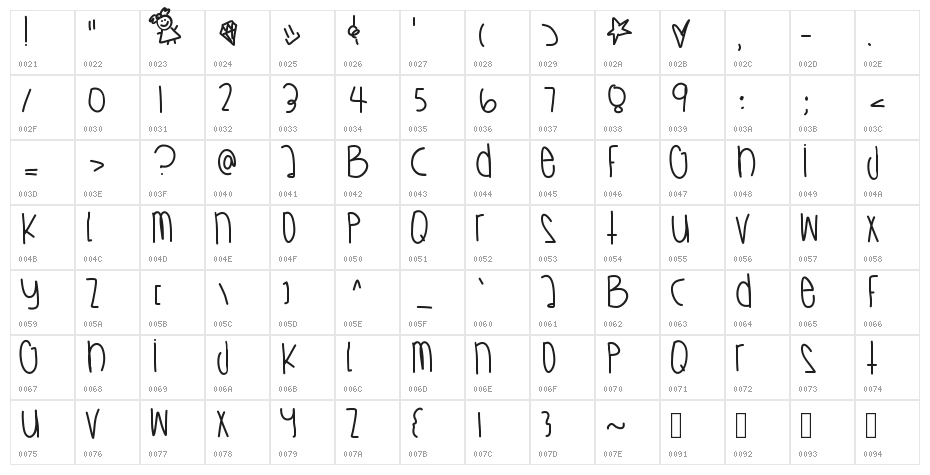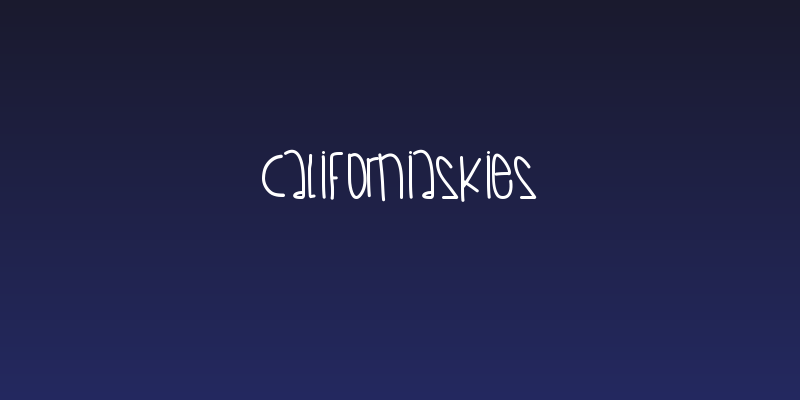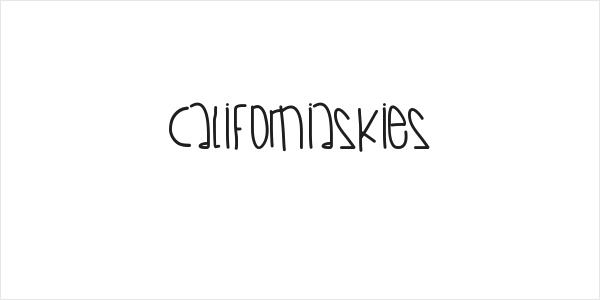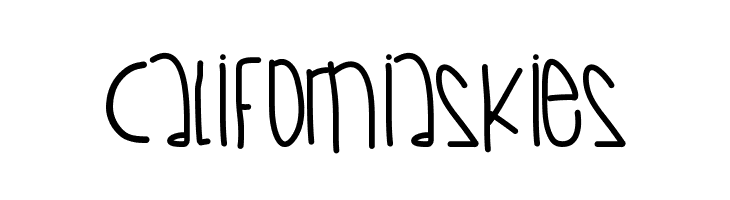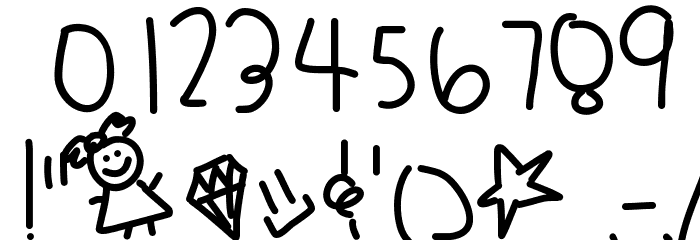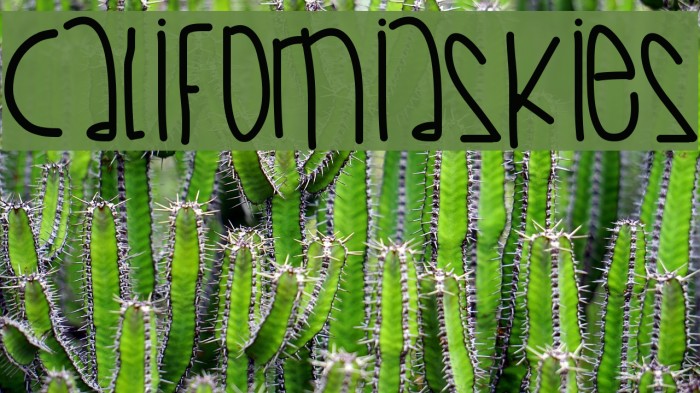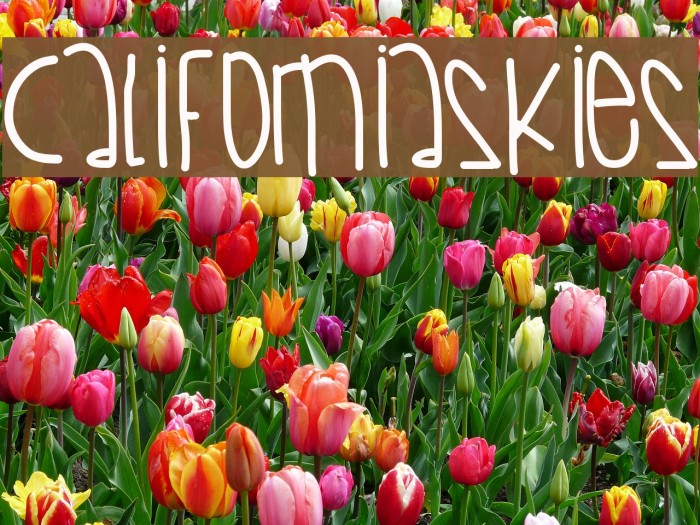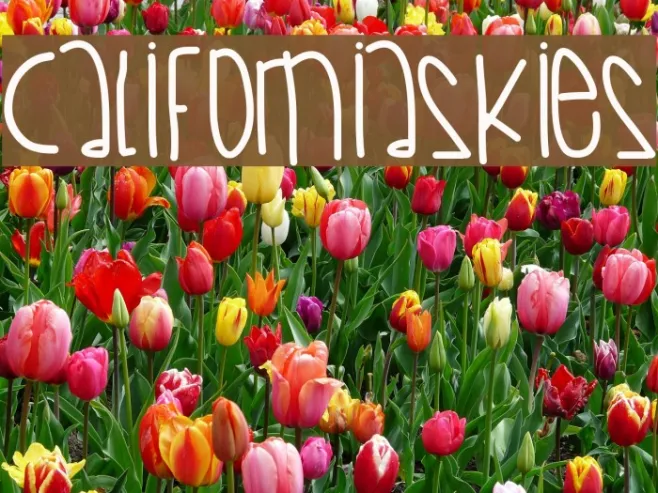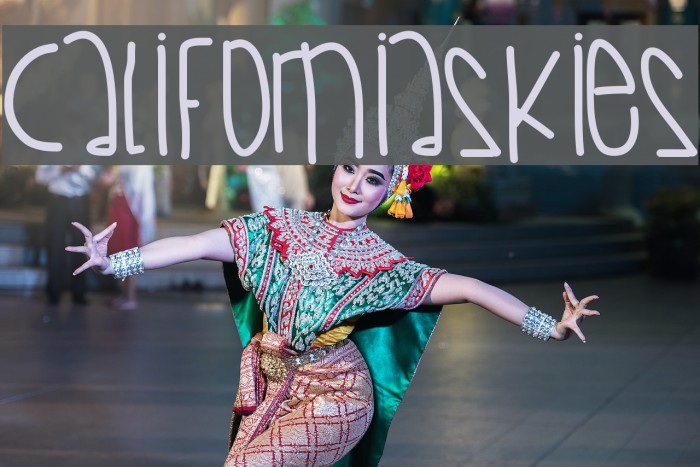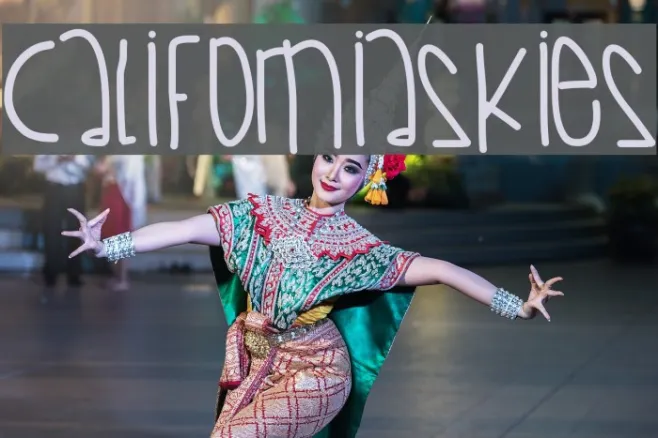
CaliforniaSkies Font
CaliforniaSkies Description
This playful and whimsical font features a handwritten style with a casual and friendly appearance. The letters are tall and narrow, with a consistent stroke width that gives it a uniform look. The characters have a slight slant, adding to the informal and relaxed vibe. The font includes both uppercase and lowercase letters, numbers, and a selection of special characters. Its unique style is characterized by rounded edges and a slightly uneven baseline, which enhances its hand-drawn aesthetic. The overall design is approachable and fun, making it suitable for creative and informal projects.